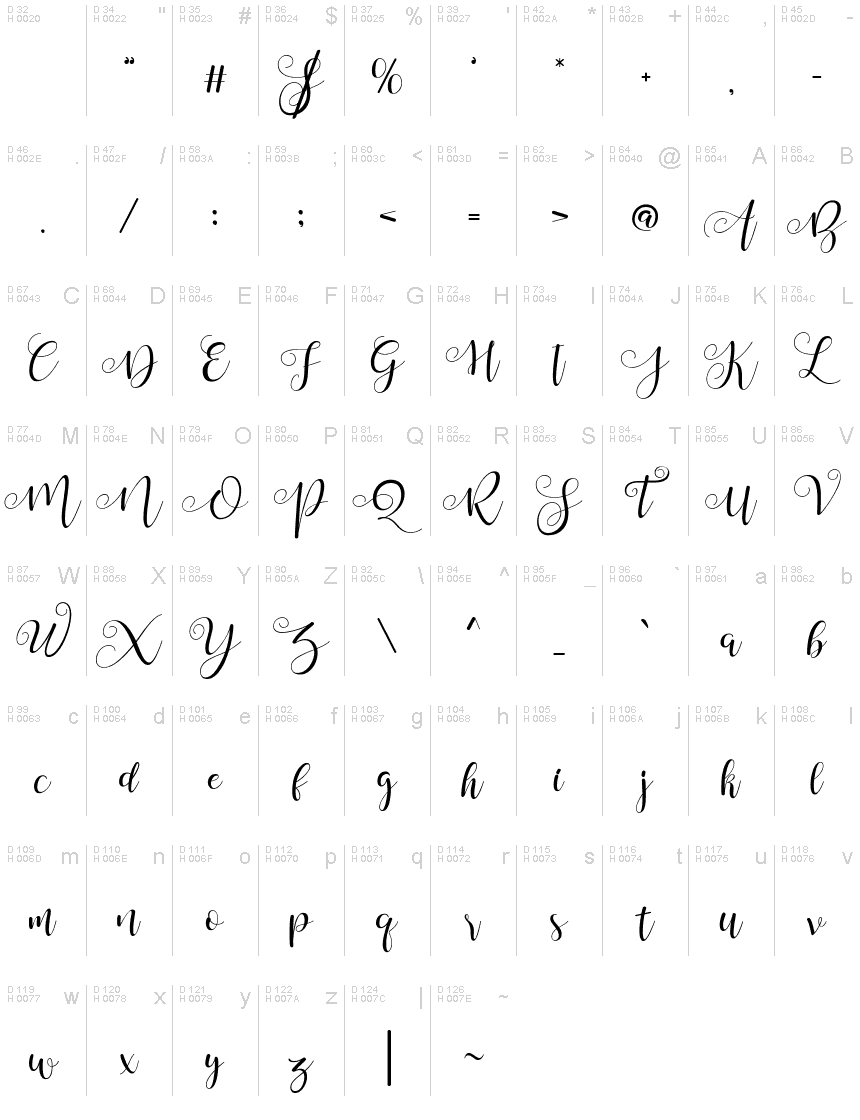
Summer Wedding Script Regular
Summer Wedding Script is a playful calligraphy font, designed by Nico Muslib. Its light weight makes it ideal for adding a touch of romantic elegance to wedding invitations, love notes and other special event projects.